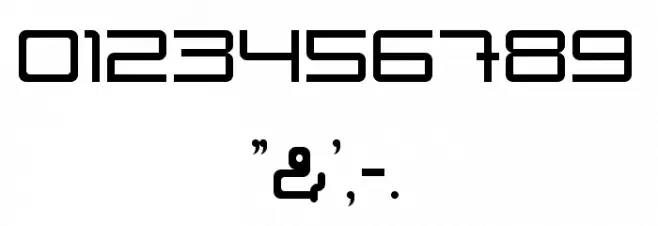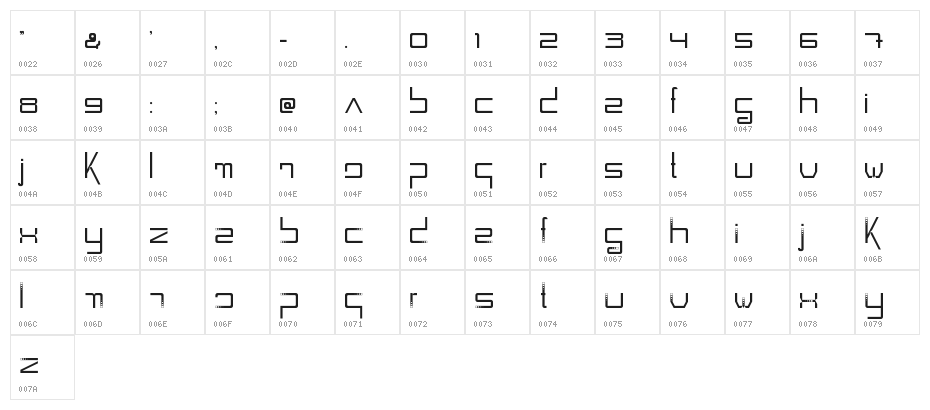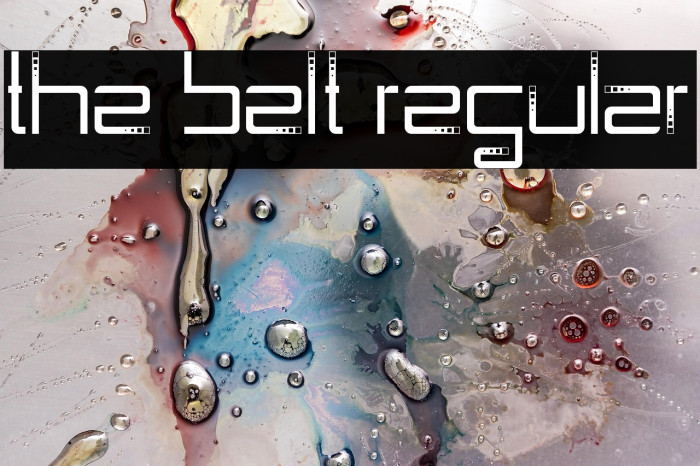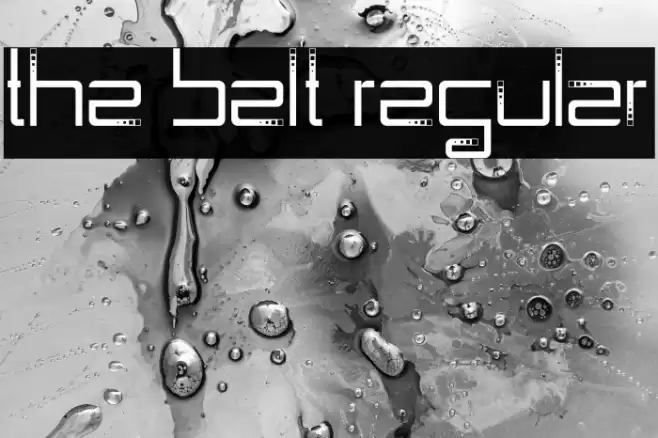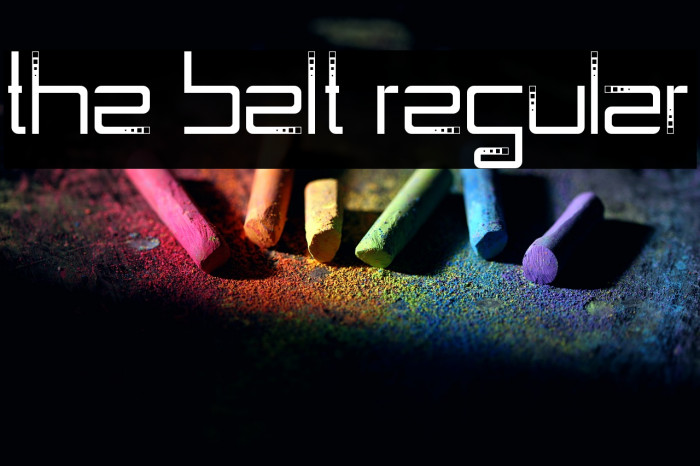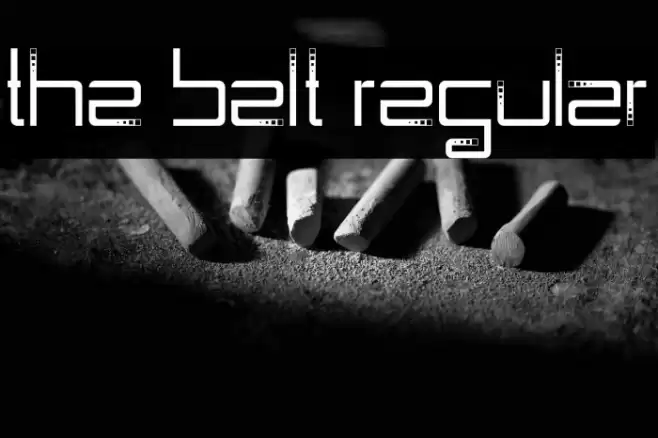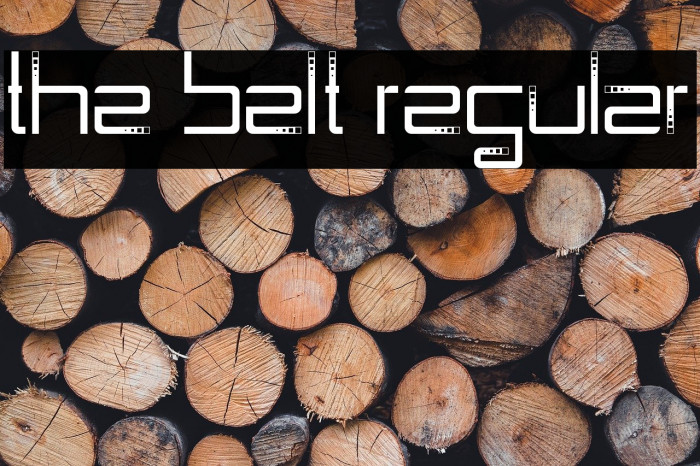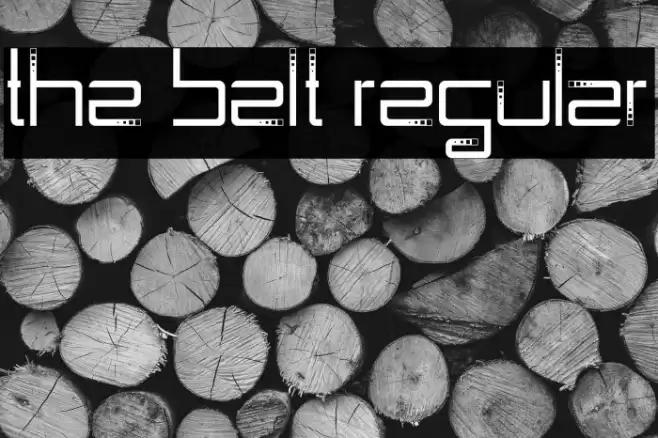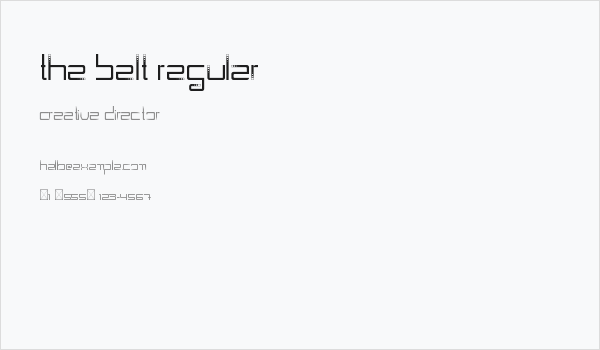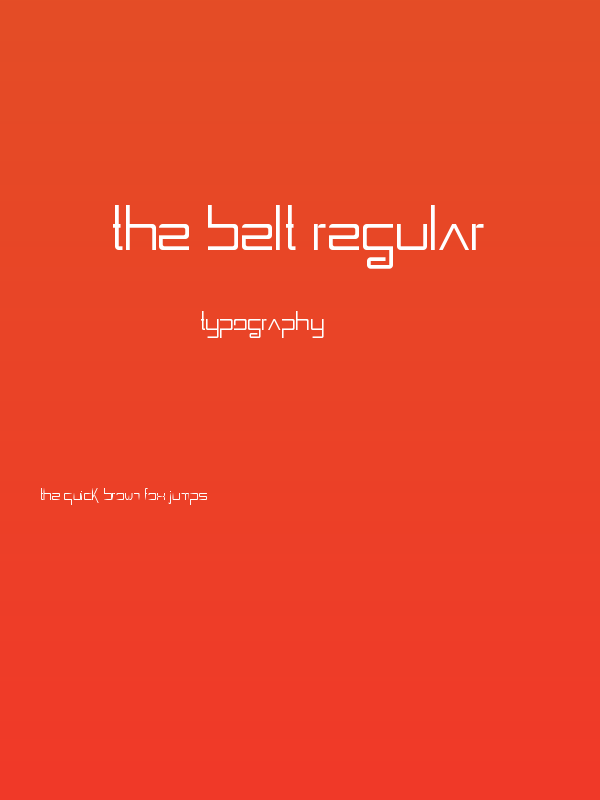
The Belt Regular Font
The Belt Regular Description
This font features a unique and modern design with a geometric and futuristic aesthetic. The characters are constructed with a combination of straight lines and sharp angles, giving it a distinct, tech-inspired look. The uppercase and lowercase letters maintain a consistent style, with some letters incorporating a dotted pattern within their structure, adding an extra layer of visual interest. The numerals and special characters follow the same design principles, ensuring uniformity across the font. Its clean and structured appearance makes it suitable for projects that require a contemporary and innovative touch.
| Proposed Projects | Ideal for technology branding, futuristic posters, digital interfaces, and sci-fi themed designs. |